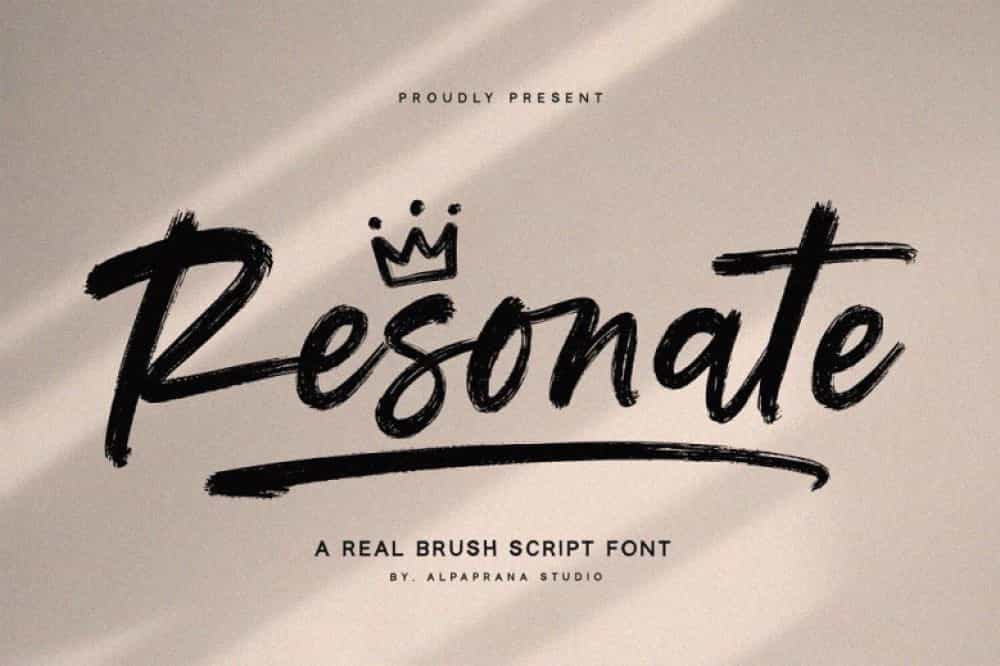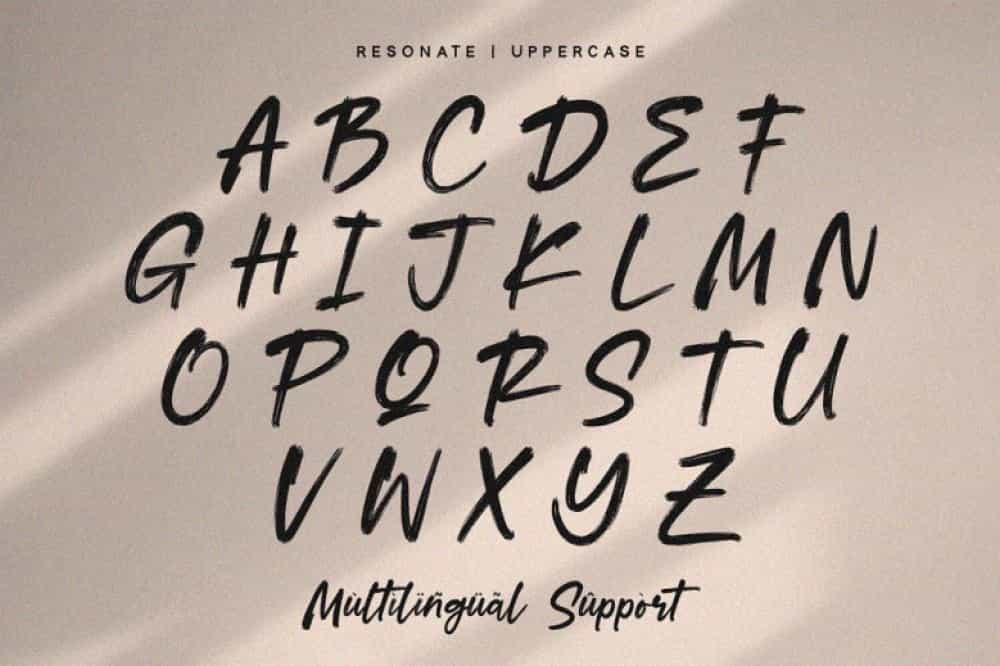
Resonate is a brush script font that has a nice, modern feel to it. It will be suitable for Branding, Logo Design, Lettering, Logotype, Clothing, Posters, magazines, packaging, posters, shopping bags, t-shirts, book covers, photography, special events, and more other design works.